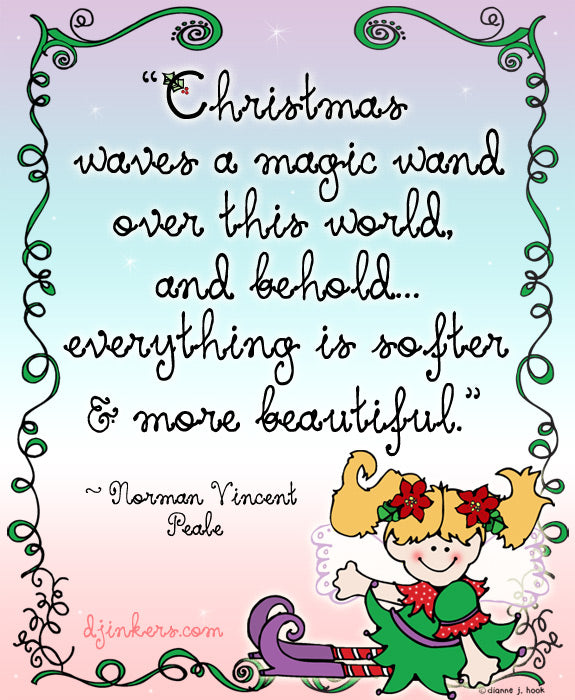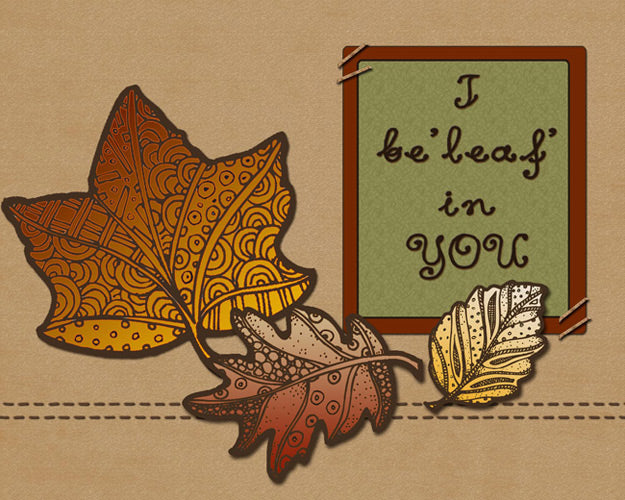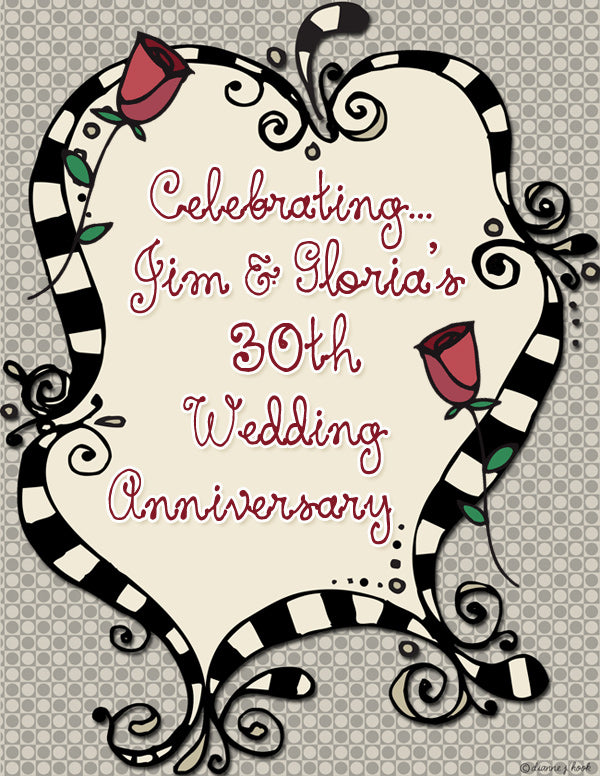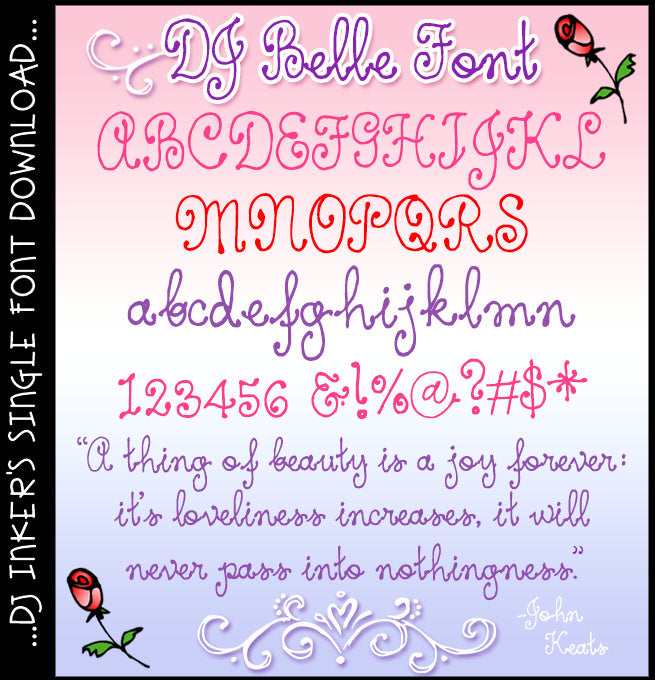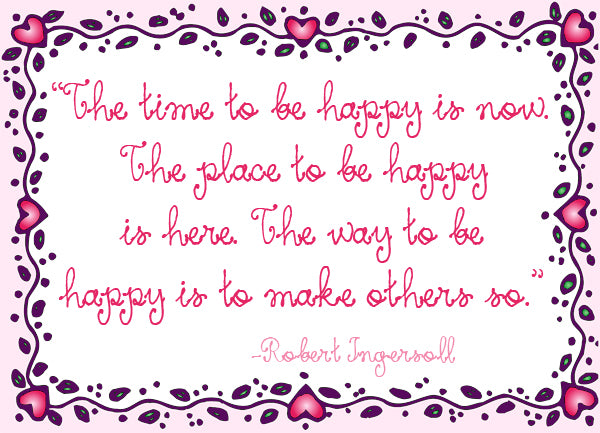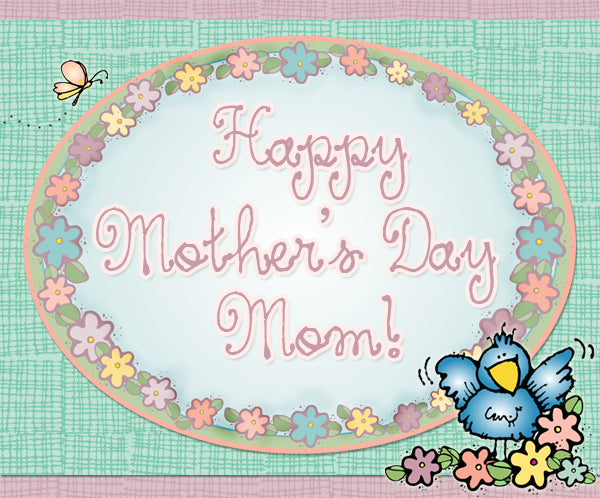
DJ Belle Font Download
DJ Belle is an adorable cursive font that's simply wonderful
for love notes, valentines, journaling & cards for your friends &
loved ones! This sweet little font looks great in any color & size.